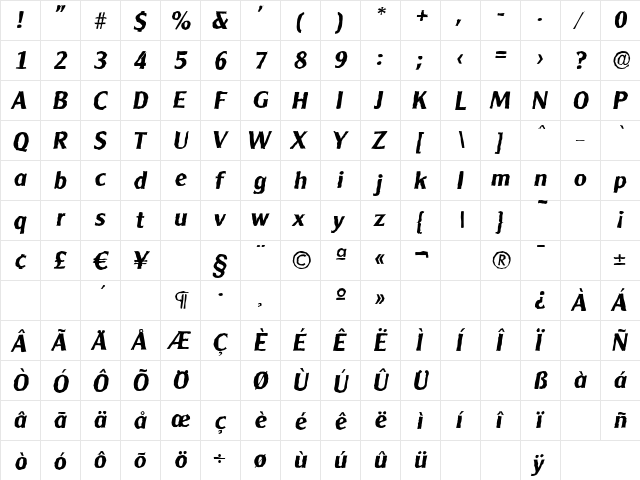
Design Context for ClearGothicAntique Typeface
ClearGothicAntique wears its vintage influences proudly, with letterforms that recall mid-century signage, classic packaging, and nostalgia-driven design. Its italic angle brings a sense of urgency and motion to the letterforms. The heavy weight commands attention and anchors typographic hierarchies.
Font Pairing: Combine ClearGothicAntique with a simple slab or neutral sans — period-accurate companions reinforce the vintage feel without competing for attention.
Pro Tip: Use ClearGothicAntique for headlines and pull quotes rather than body copy — its personality is best appreciated in short, focused bursts.